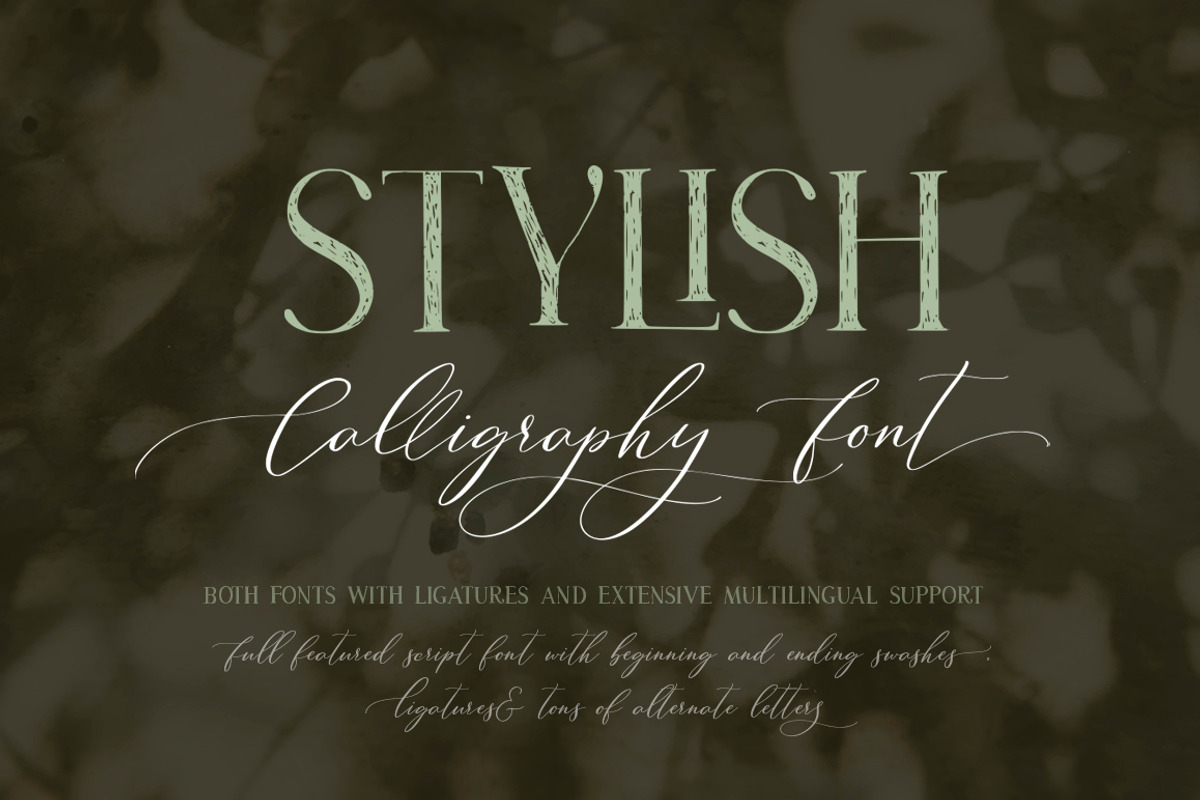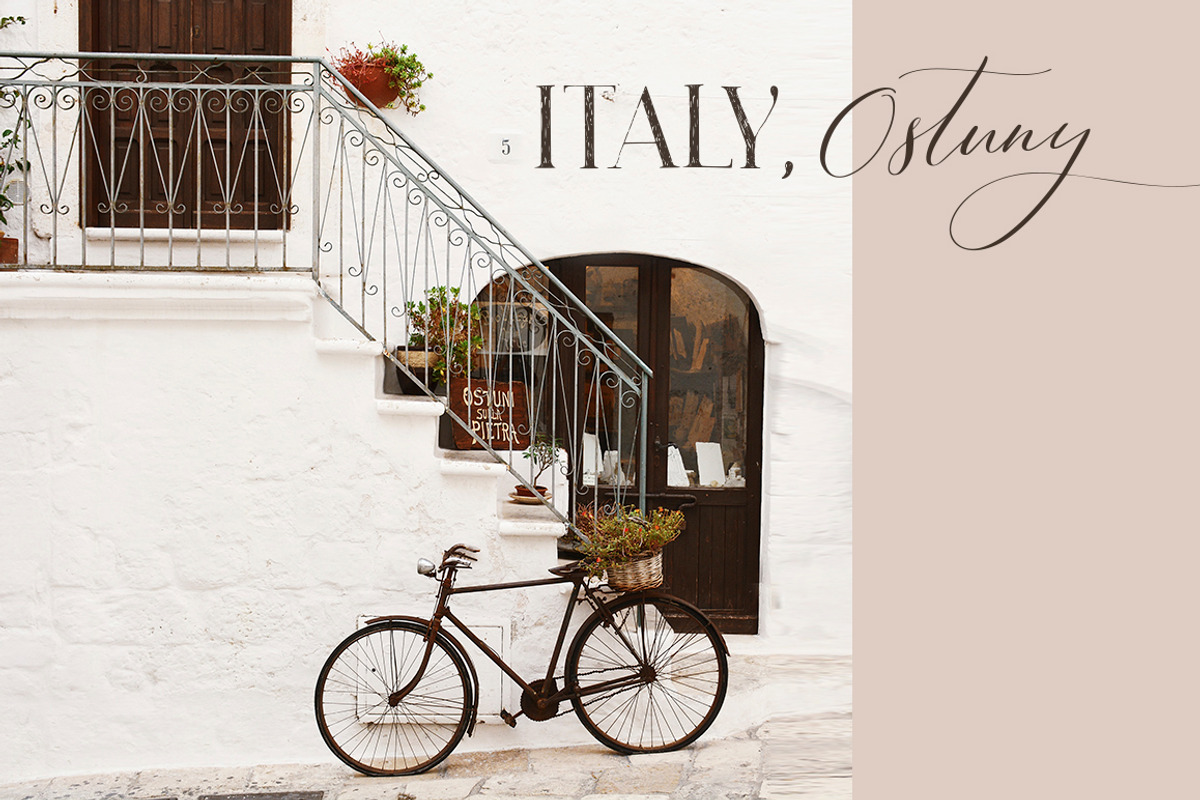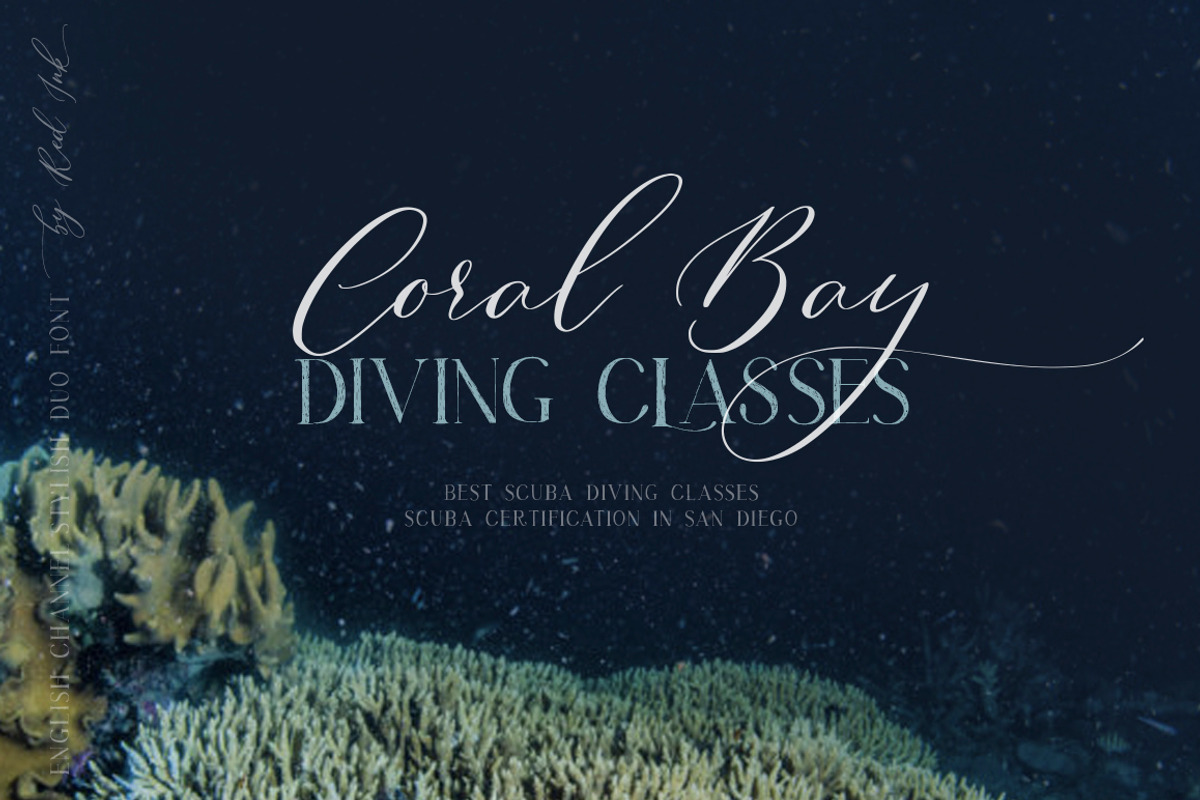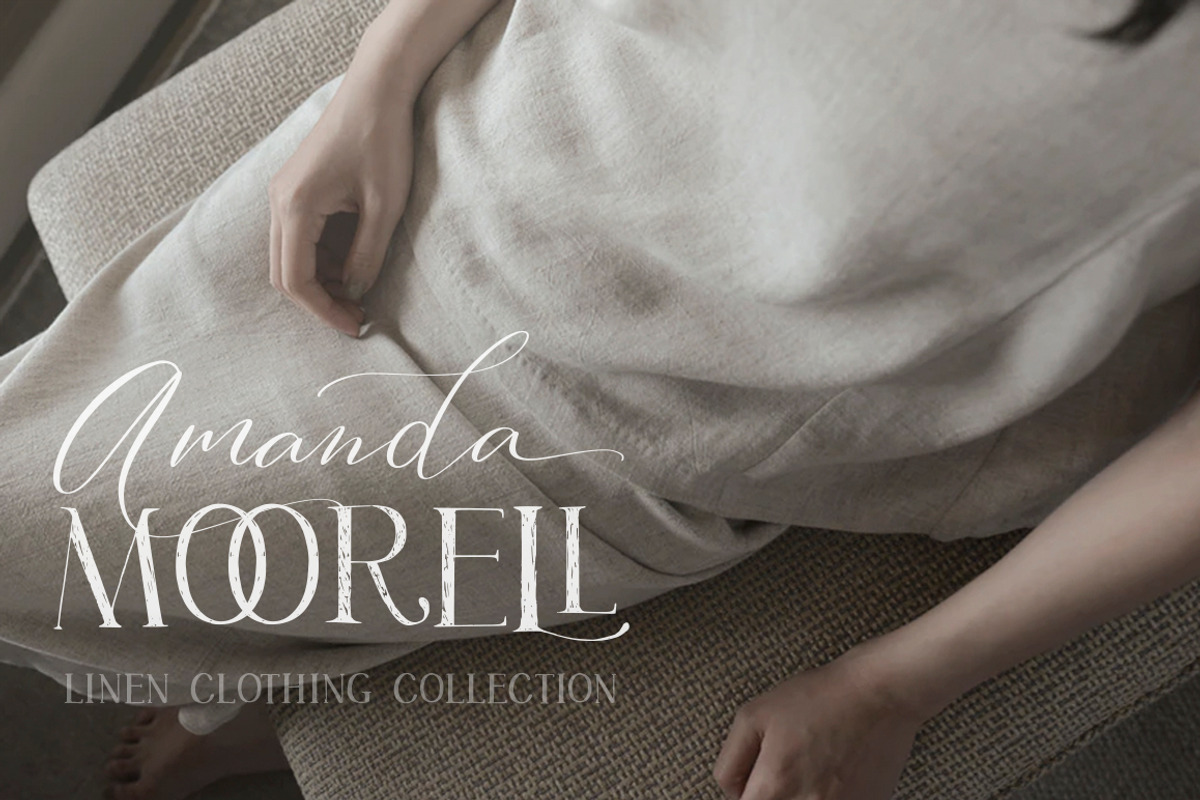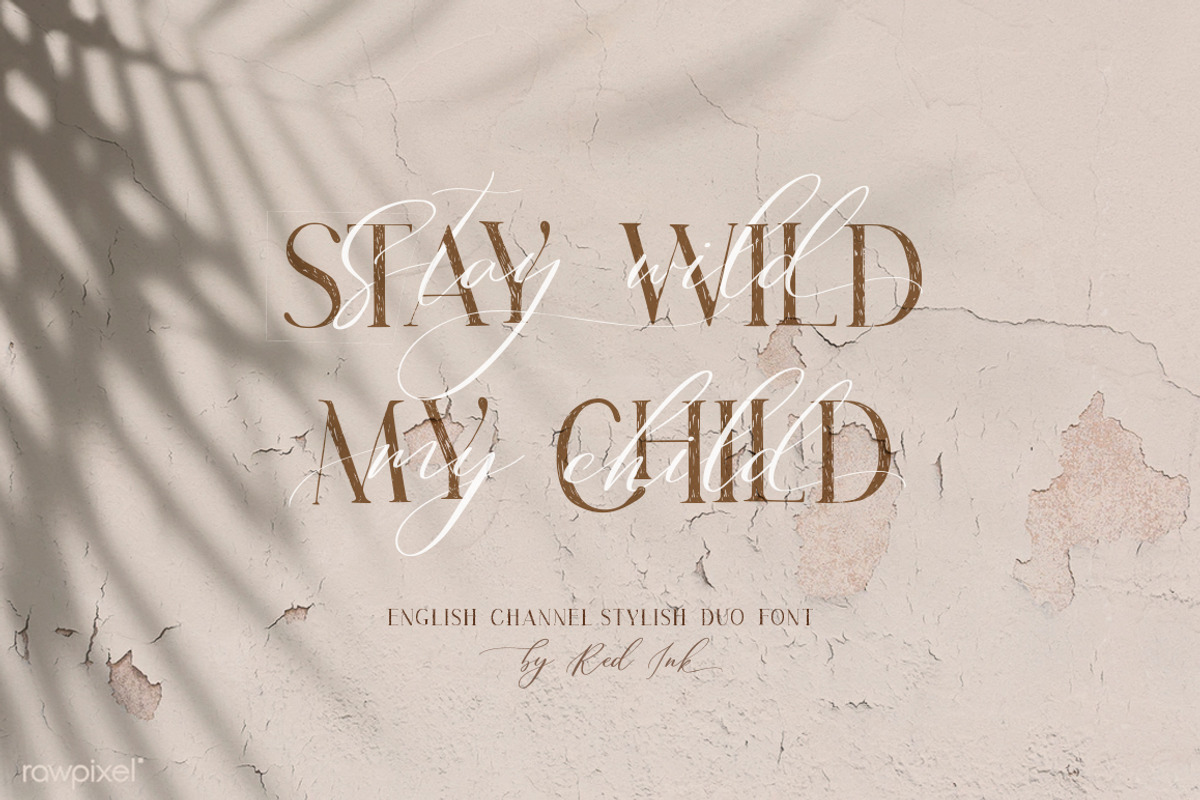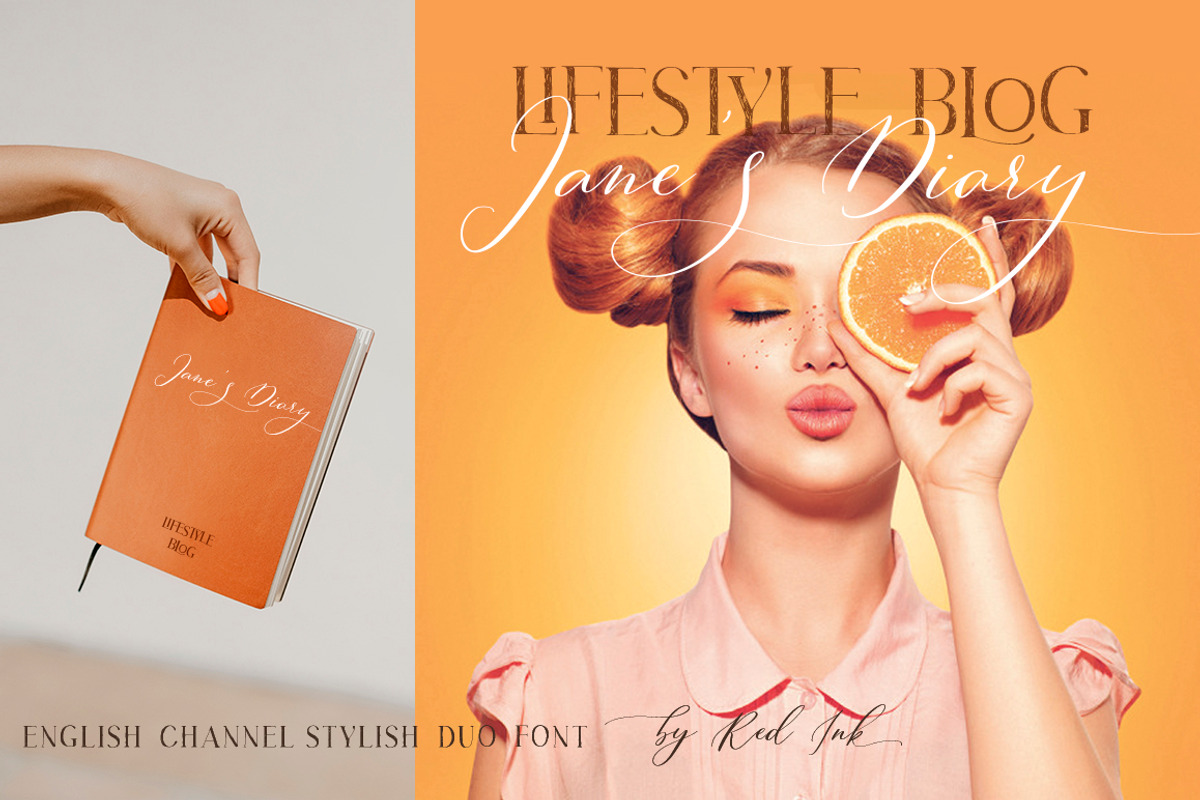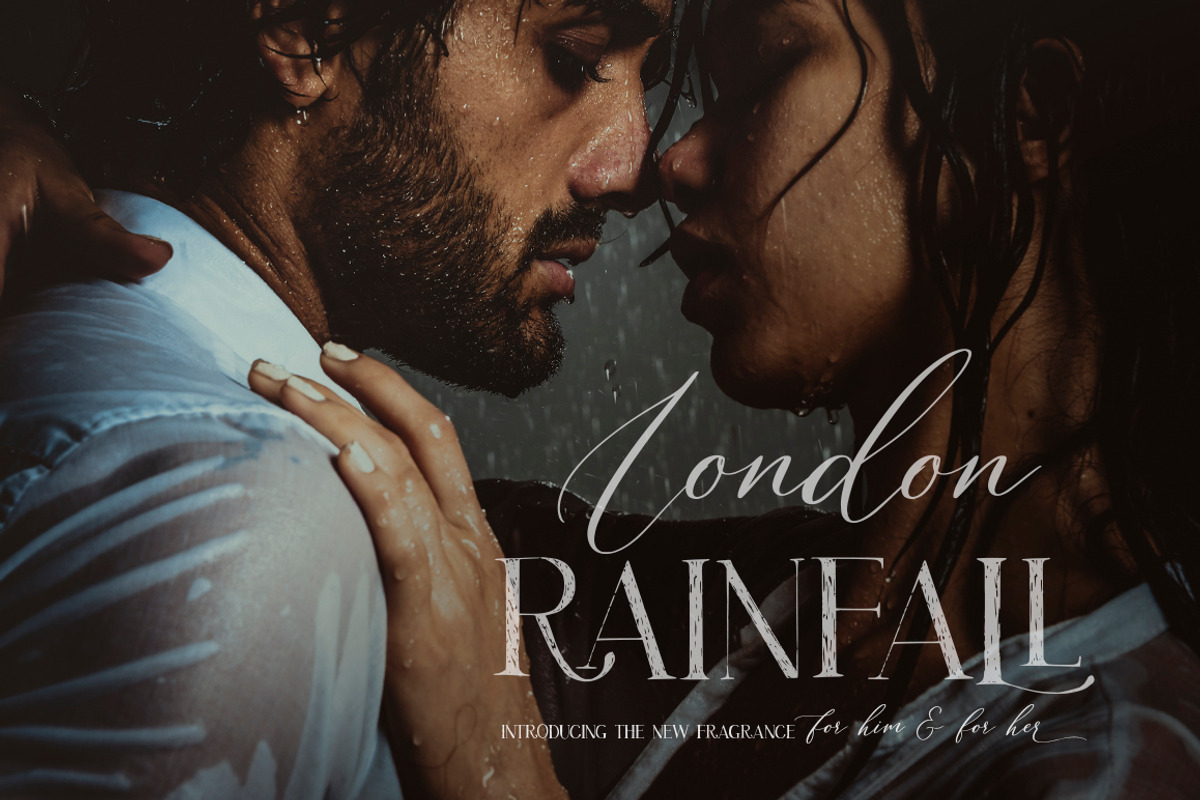
English Channel. Duo Font.
Say hello for calligraphy font debut “English Channel” – my new contemporary stylish font duo.
“English Channel” is high fashion font duo that makes for gorgeous logos, posters, wedding invitations, blog posts, social media, and more! I love using these two fonts together, so it looks like the script is running through the lines of the serif.
English Channel Regular Script font includes a lot of ligatures, beginning and ending letters, with awesome swashes and a lot of alternate letters, which are very easy to get (without using Glyphs Panel).
You can reach alternate letters through the glyph panel as standard. But I also wanted to simplify the work for you, so you can choose the letter option even easier:
just type the number after any letter ( 1…3 for uppercase, 1…3 for lowercase)”. So, you can forget about the Glyphs panel and have fun and great results just type numbers after letters
English Channel Uppercase Font consisted of capital handwritten letters with organic texture letters and also have cool ligatures to decorate texts and give them even more personality